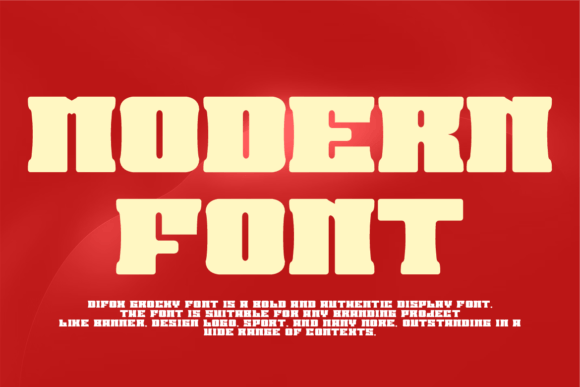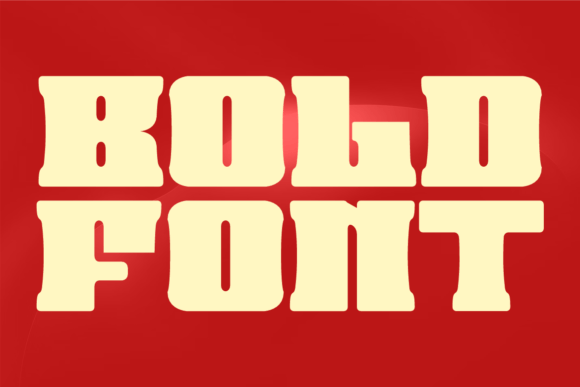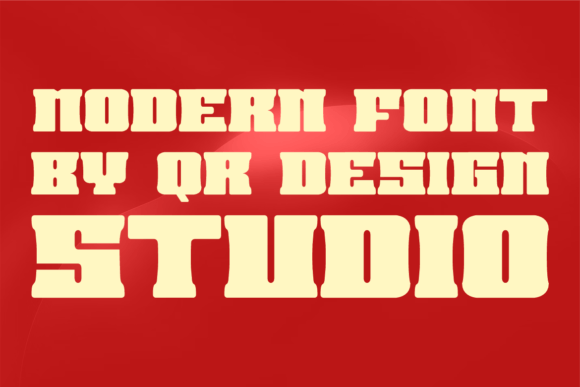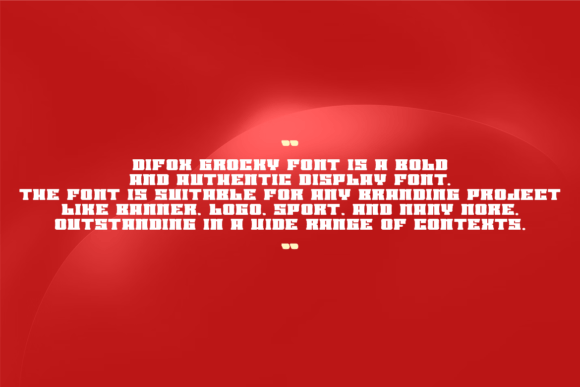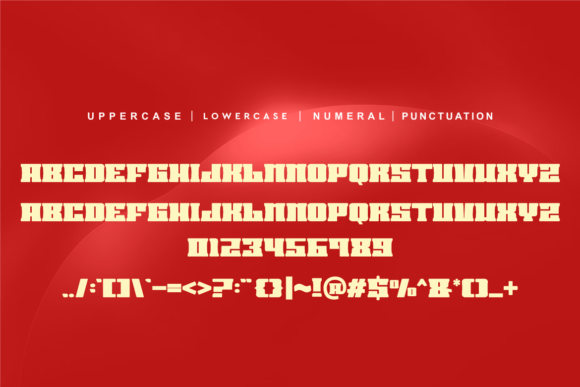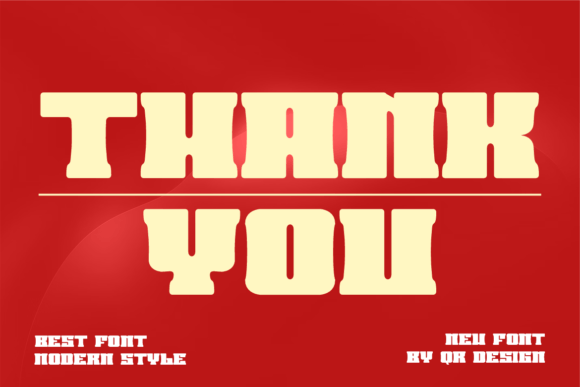
Difox Grocky Font: Elevate Your Designs with a Bold and Authentic Display Font
Are you tired of using the same old fonts for your branding projects? Look no further than Difox Grocky, a bold and authentic display font that’s perfect for making a statement. Whether you’re working on a logo, T-shirt design, sports branding, or any other project, Difox Grocky is sure to take your work to the next level.
What is Difox Grocky Font?
Difox Grocky is a unique and eye-catching display font designed to help you create extraordinary designs. Its bold and authentic style makes it perfect for a wide range of applications, from logos and t-shirts to sports branding and more. With Difox Grocky, you can add a touch of personality and flair to your designs, setting them apart from the crowd.
Key Features of Difox Grocky Font
- Bold and Authentic Style: Difox Grocky has a distinctive and attention-grabbing style that’s perfect for making a statement.
- Versatile: This font is suitable for a wide range of projects, including logos, t-shirts, sports branding, and more.
- Easily Readable: Despite its bold style, Difox Grocky is easy to read, making it perfect for use in a variety of contexts.
- High-Quality Design: Difox Grocky is designed with high-quality and precision, ensuring that it looks great in any size or resolution.
Use Cases for Difox Grocky Font
Difox Grocky is an incredibly versatile font that can be used in a wide range of projects, including:
- Logo Design: Create a bold and memorable logo for your brand with Difox Grocky.
- T-Shirt Printing: Design eye-catching t-shirts with Difox Grocky, perfect for businesses, events, or personal use.
- Sports Branding: Use Difox Grocky to create bold and dynamic branding for sports teams, events, or products.
- Advertising and Marketing: Add a touch of personality and flair to your advertising and marketing materials with Difox Grocky.
Why Choose Difox Grocky Font?
With so many fonts available, why choose Difox Grocky? Here are just a few reasons:
- Unique Style: Difox Grocky has a distinctive style that’s sure to set your designs apart from the crowd.
- High-Quality Design: Difox Grocky is designed with precision and attention to detail, ensuring that it looks great in any size or resolution.
- Support for Multiple Languages: Difox Grocky supports multiple languages, making it perfect for use in a global market.